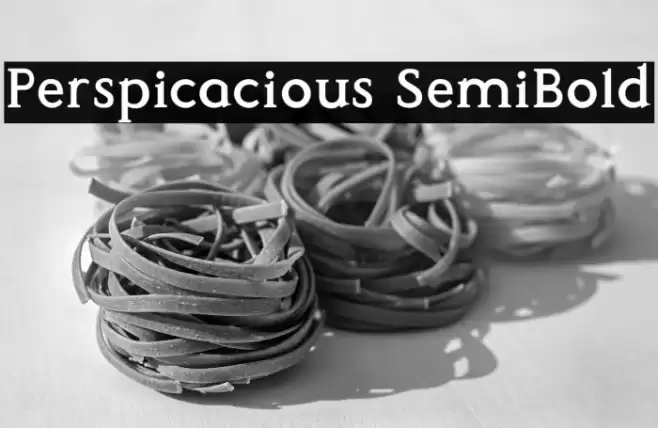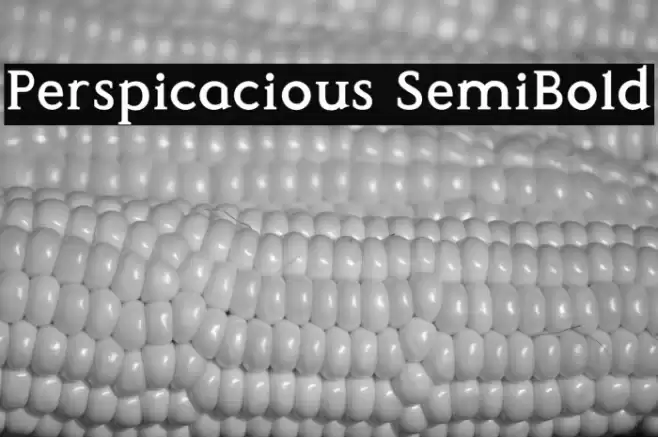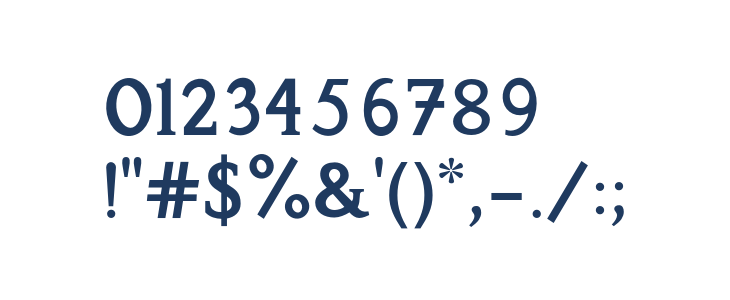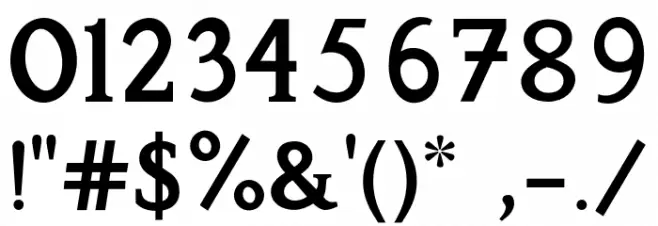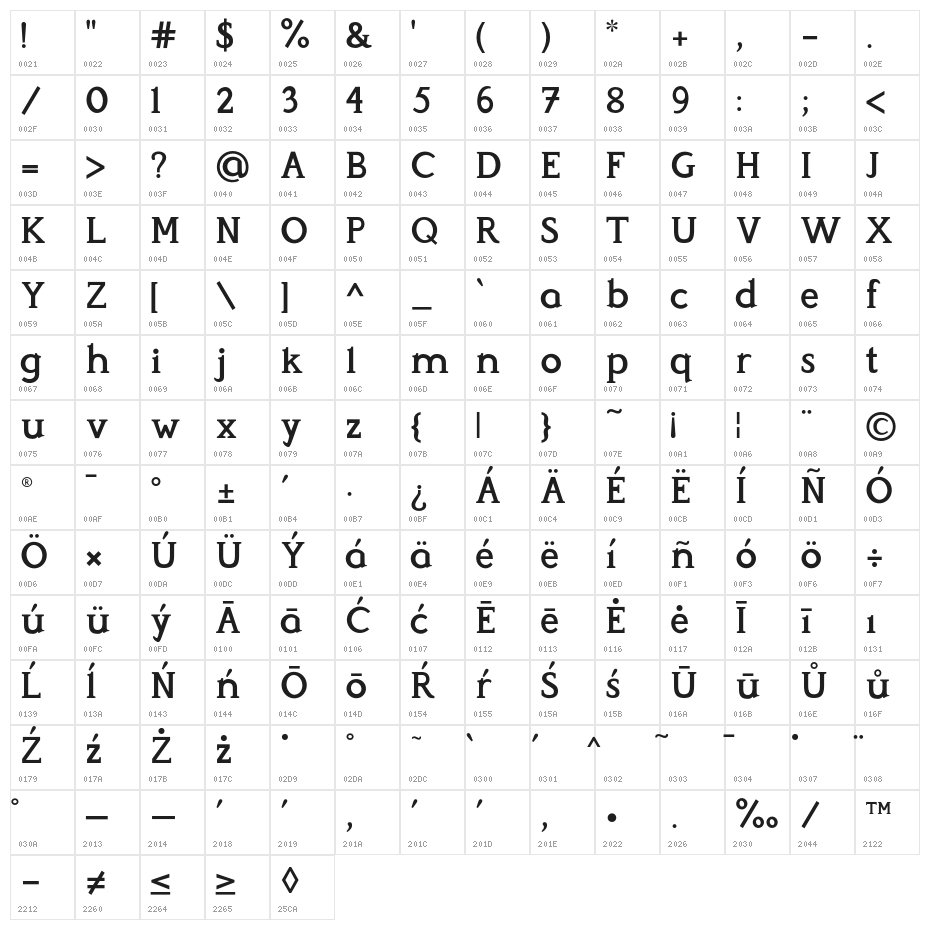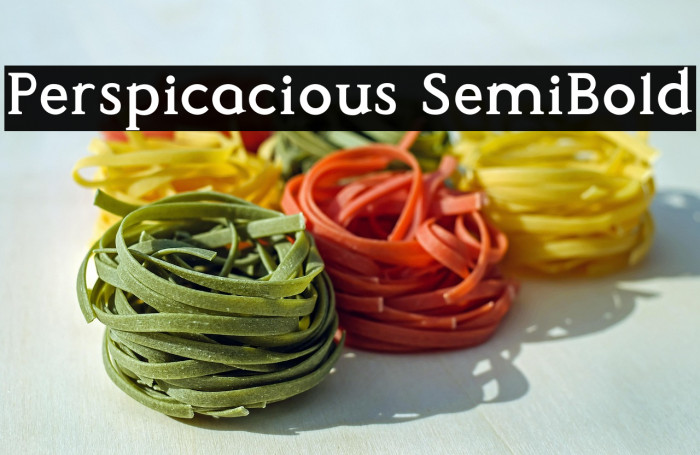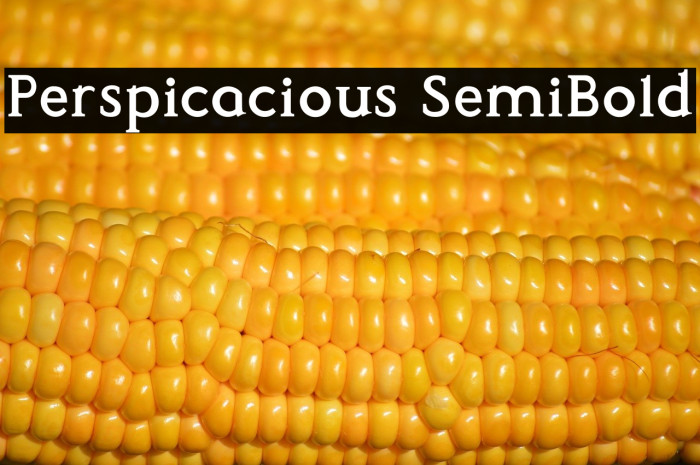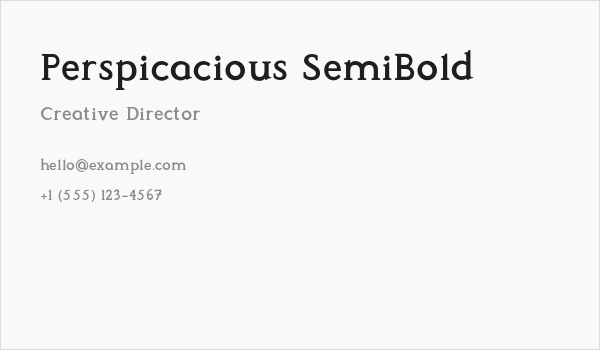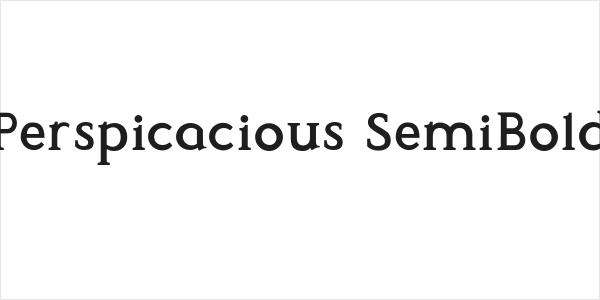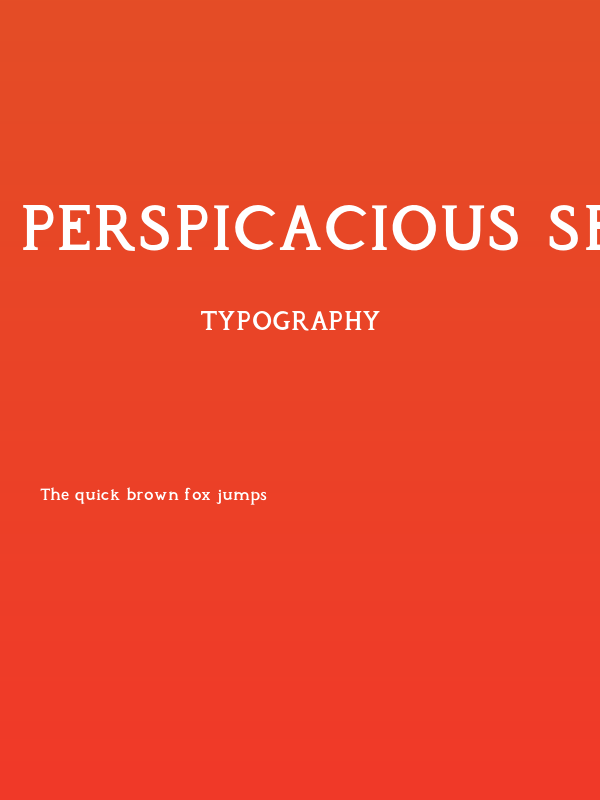
Perspicacious SemiBold Font
Perspicacious SemiBold Description
This font exhibits a classic serif style with semi-bold weight, offering a balanced and readable appearance. The characters are well-defined with moderate contrast between thick and thin strokes, enhancing legibility. The serifs are pronounced yet not overly ornate, providing a traditional yet modern feel. The uppercase letters are slightly taller than the lowercase, maintaining a consistent baseline. The numerals are proportionate and align well with the overall design, while the special characters are distinct and harmonize with the alphabetic characters. The font's structure is suitable for both digital and print media, ensuring versatility across various applications.
A classic serif font with semi-bold weight and moderate contrast, ideal for versatile applications from Uncategorized fonts.
- Proposed Projects: This font is perfect for editorial design, book covers, formal invitations, and branding materials where a touch of elegance is desired.
- Overall Style: Classic